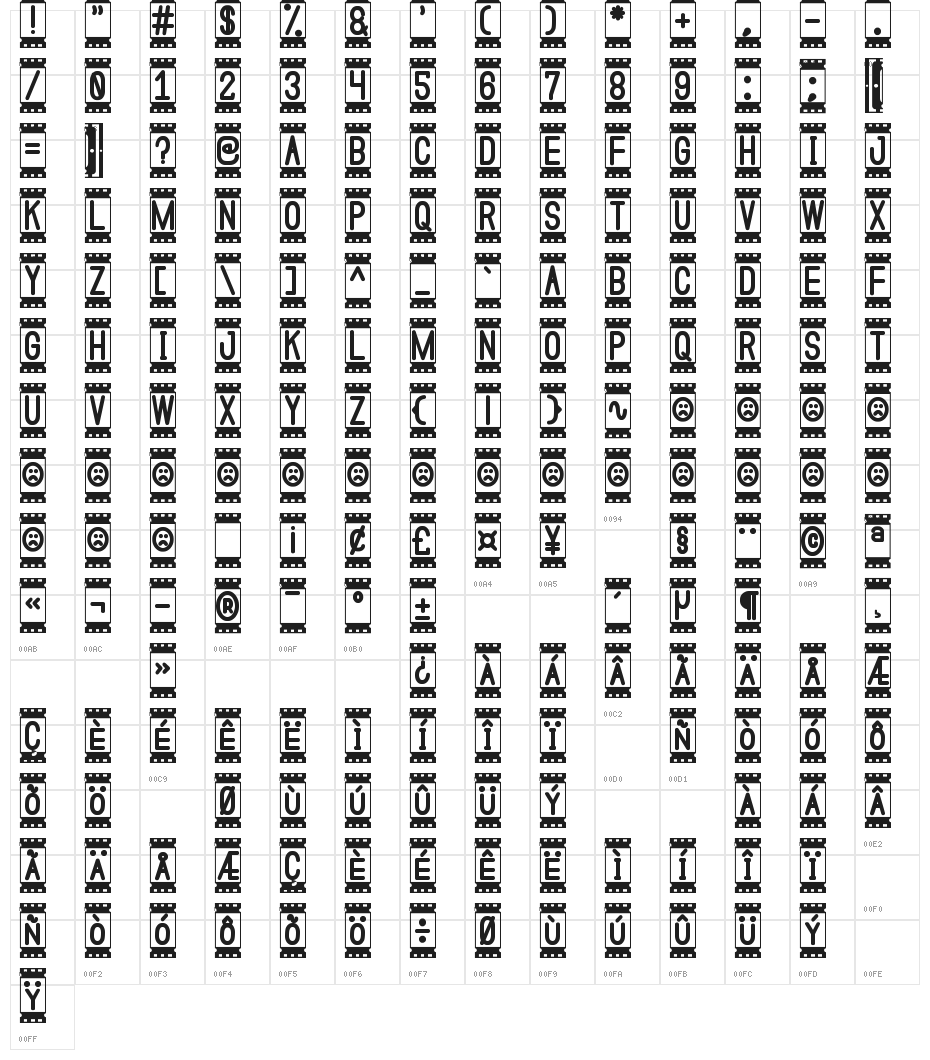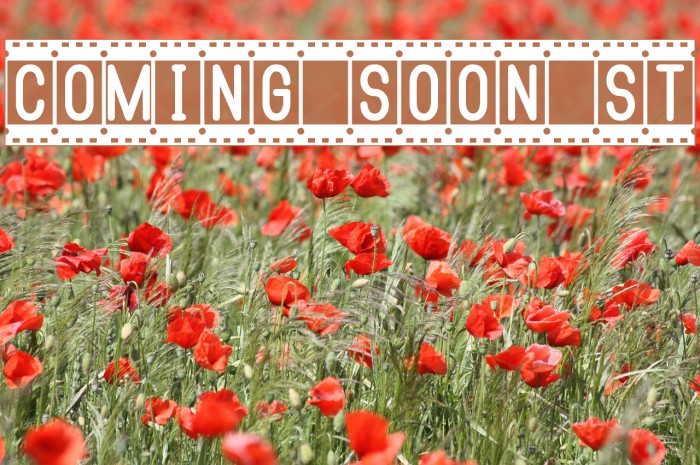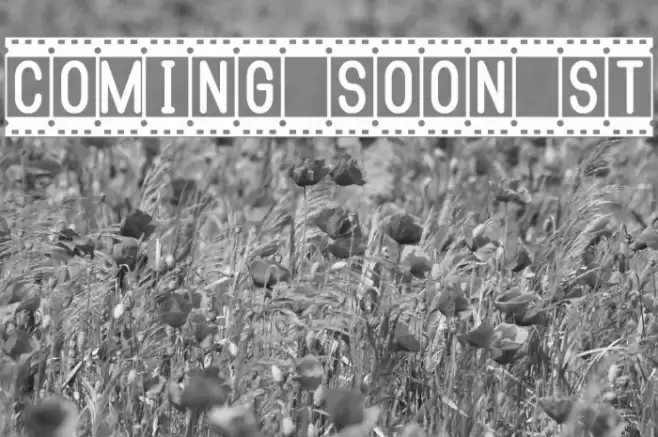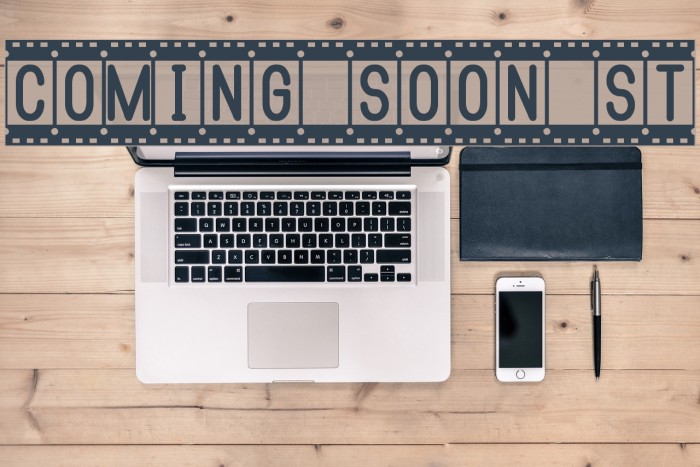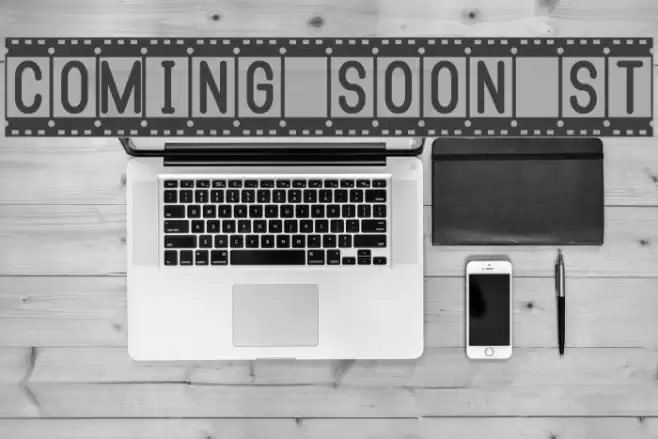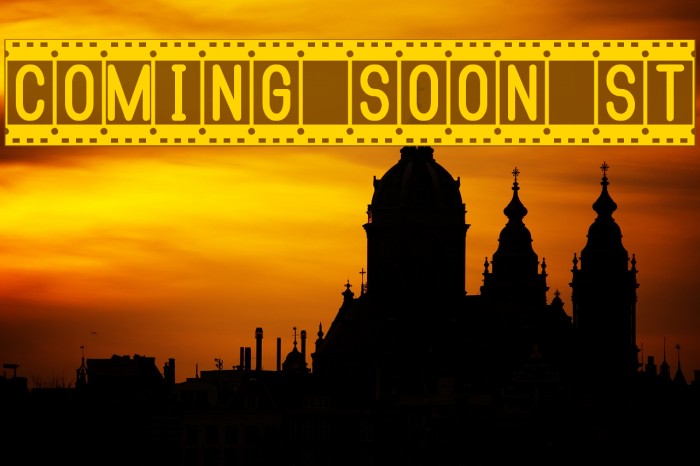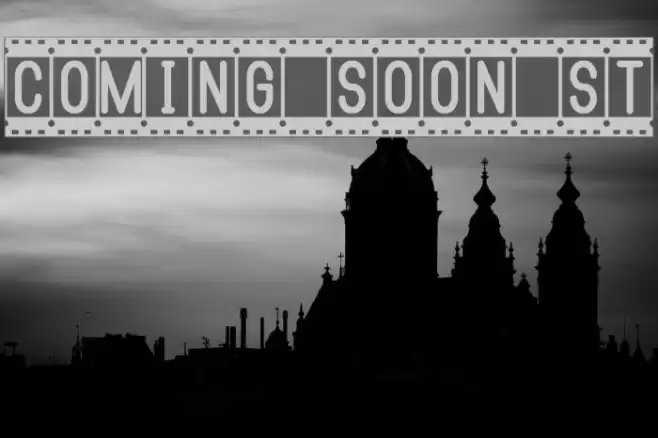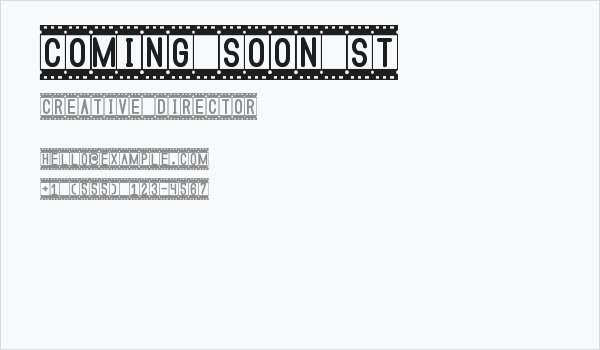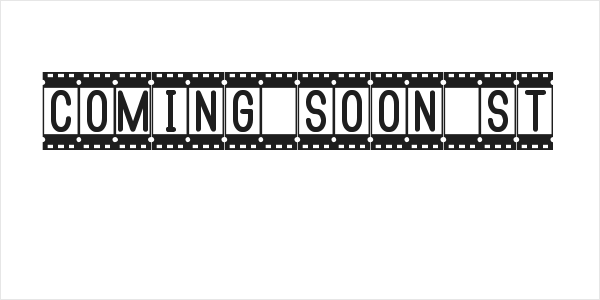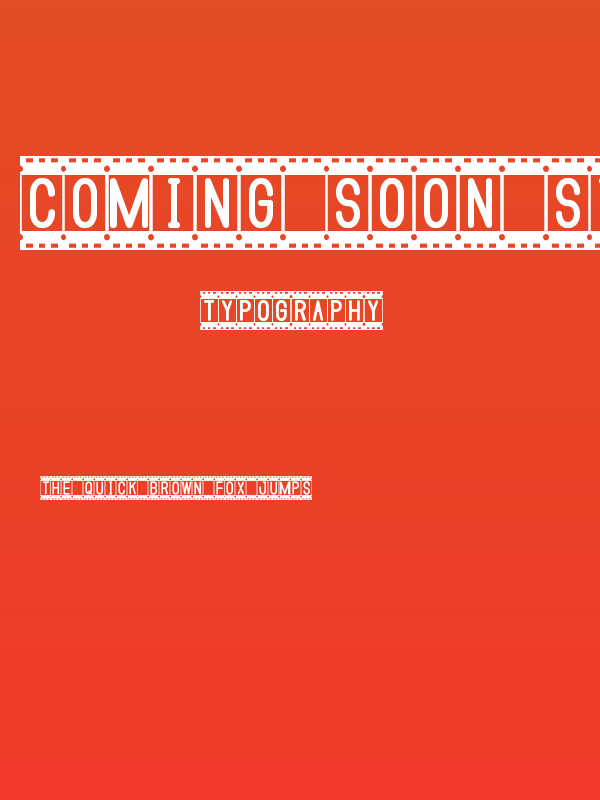
Coming Soon St Font
Coming Soon St Description
This font features a playful and decorative style reminiscent of marquee lights or cinema signage. Each character is enclosed in a rectangular box with rounded corners, and the letters are bold with a consistent stroke width. The design includes small circular dots around each character, adding a unique and eye-catching element. The uppercase and lowercase letters maintain a uniform height, contributing to a cohesive appearance. The numerals and special characters follow the same design principles, ensuring consistency across all glyphs. This font's distinct style makes it suitable for projects that require a fun and engaging visual impact.
| Proposed Projects | Ideal for movie posters, theater signage, event invitations, and retro-themed designs. |